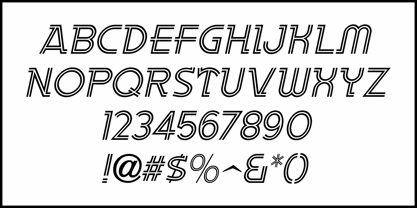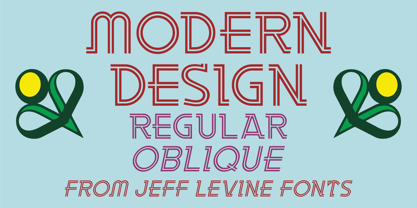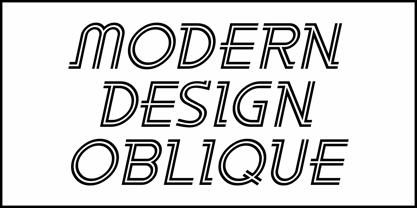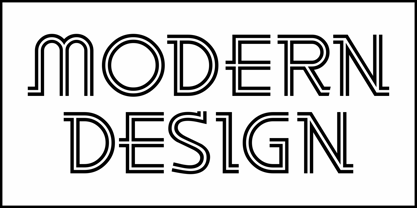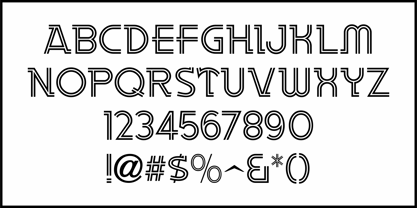
Modern Design JNL
by Jeff Levine
The Modern Design JNL Font Family was designed by Jeff Levine and published by Jeff Levine. Modern Design JNL contains 2 styles and family package options.
Hand lettering for a comical blurb on the cover of the 1938 edition of Film Fun provided the inspiration for Modern Design JNL, which is availble in both regular and oblique versions.
This dual line type design is a sans serif with some serif influences.